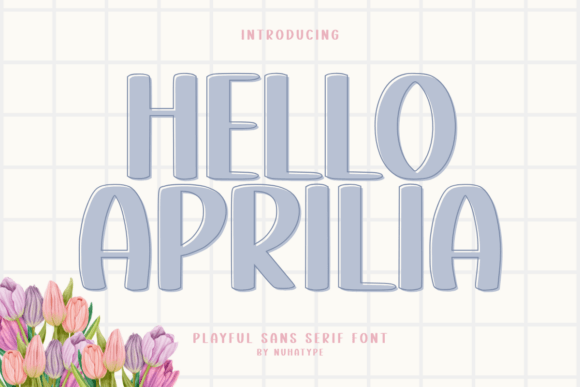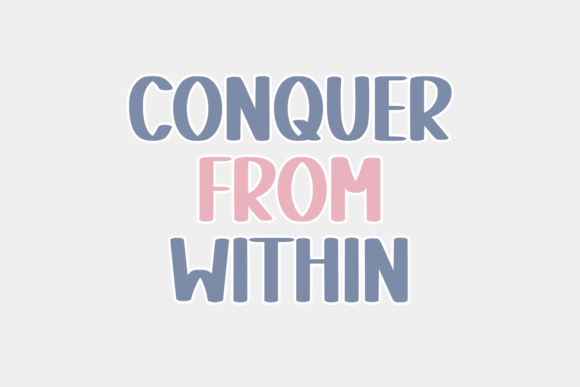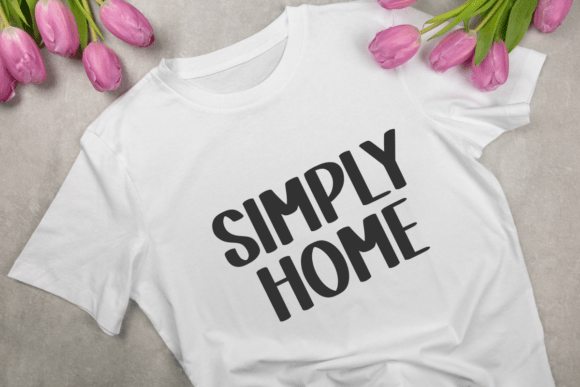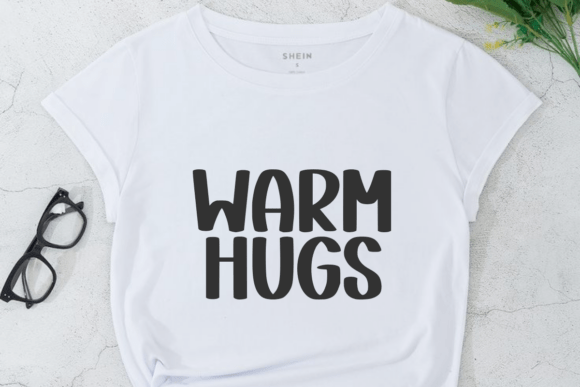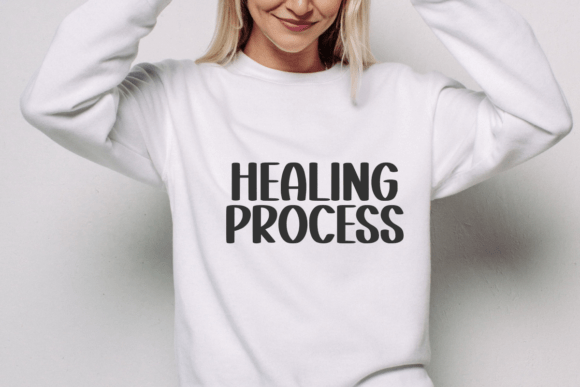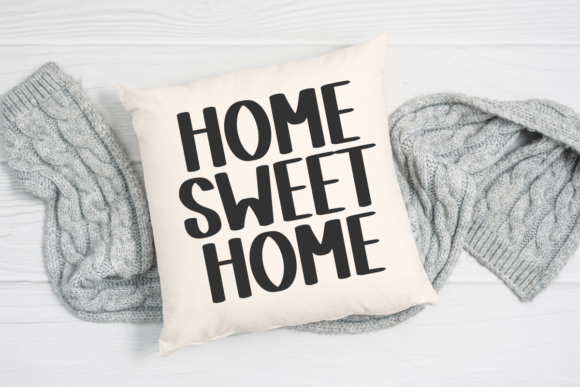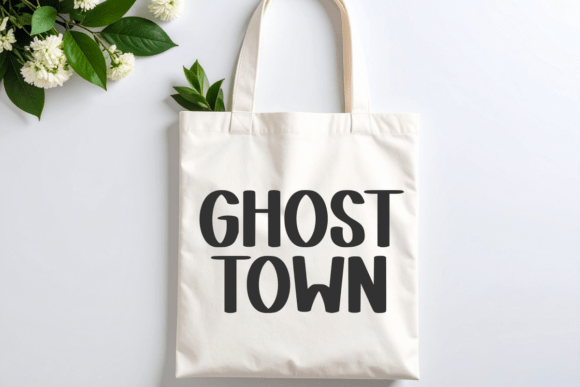
Welcome to the World of Whimsical Typography
Remember those magical moments when you’re rummaging through your craft stash, searching for the perfect font to add that extra touch to your DIY project? The excitement of finding the perfect combination of style and charm can be truly exhilarating.
That’s exactly what you’ll experience with the Hello Aprilia Font, a charming sans serif handwriting font designed to evoke a sense of warmth and friendliness. Perfect for crafting moms, teachers, and anyone who loves a touch of handmade elegance, this font is ideal for a wide range of creative applications, from craft projects to kids’ worksheets and planners.
With its soft, natural look and smooth curves, the Hello Aprilia Font is a valuable addition to any designer’s toolkit, offering endless possibilities for creative expression and customization.
Hello Aprilia Font Key Features
- Font Family: Hello Aprilia Font is a sans-serif font family that offers a modern and clean look.
- Character Count: The font family includes a wide range of characters, including Latin, Cyrillic, and Greek alphabets, as well as punctuation marks and symbols.
- Unique Characteristics: Hello Aprilia Font features a unique blend of geometric and rounded shapes, resulting in a friendly and approachable feel.
Hello Aprilia Font Review
I recently had the chance to work with the Hello Aprilia Font, and I must say it’s an interesting addition to the world of typography. ✨ One thing that really stands out is its unique blend of modern and vintage elements. The font’s clean lines and geometric shapes give it a sleek, contemporary feel, while its subtle imperfections and irregularities add a touch of character and whimsy.
Another aspect that I appreciate is its versatility. The font comes in a range of weights and styles, making it suitable for a variety of applications, from body text to headings and even display type.
- ✨ Unique blend of modern and vintage elements
- ✨ Clean lines and geometric shapes
- ✨ Versatile, suitable for various applications
- ⚠️ May not be suitable for highly technical or formal content
- ⚠️ Some users may find the font’s imperfections distracting
Overall, I think the Hello Aprilia Font is a great choice for designers looking to add some personality to their projects. While it may not be perfect for every application, it’s a unique and versatile font that can add a touch of charm and character to a wide range of designs.
Hello Aprilia Font is perfect for:
- Brand logos and typography projects
- High-end fashion and luxury product designs